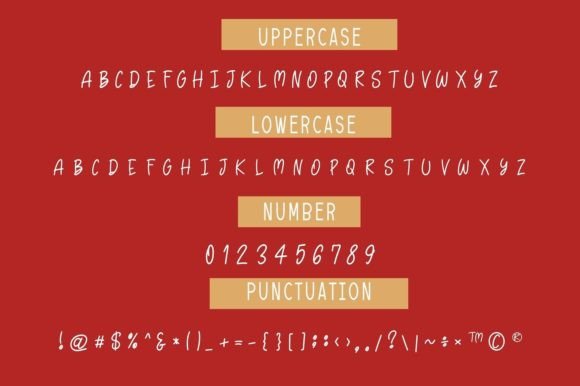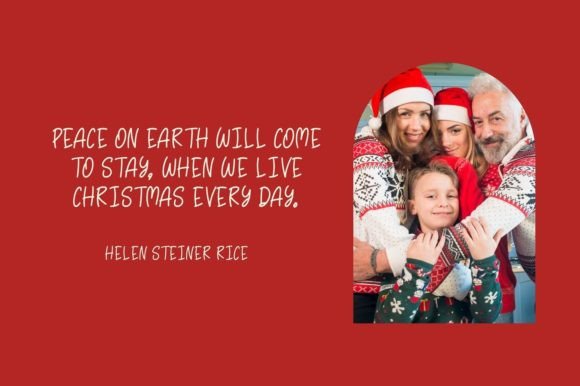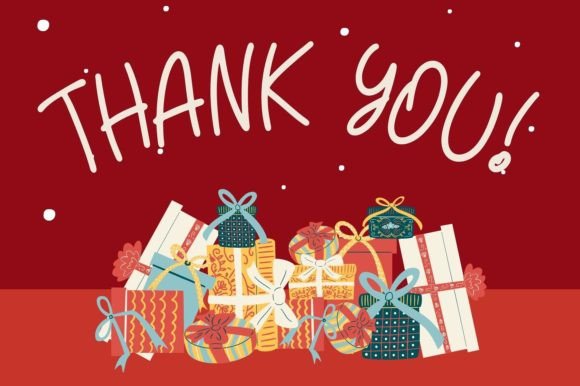
Introduction to Braidy Font
Do you ever find yourself in the midst of a creative project, rummaging through your digital stash of fonts, searching for that perfect handwritten touch? I know I do. It’s the moment when a design comes alive, and a well-chosen font can make all the difference. That’s exactly what I discovered when I stumbled upon the Braidy Font – a delightful, playful handwritten font that’s sure to elevate any project.
Key Features of Braidy Font
- Braidy Font is a high-quality design resource, ideal for creative projects requiring a unique and eye-catching typography.
- The Braidy Font features a transparent background, making it easy to overlay on images or use as a standalone design element.
- This font family includes multiple styles, from casual to formal, offering versatility for a wide range of creative projects.
- Braidy Font supports a wide range of languages, including Latin, Cyrillic, and Greek, making it a valuable resource for global design projects.
- The font’s high resolution and crisp details ensure that it looks great on both digital and print materials, from business cards to billboards.
- With its unique and intricate design, Braidy Font is perfect for designers looking to add an extra layer of sophistication and creativity to their work.
Honest Review: Braidy Font
As a designer, I’m always on the lookout for unique and high-quality design resources to enhance my creative projects. Recently, I had the chance to try out the Braidy Font, and here’s my honest review.
- ✨ The font’s intricate, hand-drawn design makes it perfect for projects that require a touch of whimsy and personality.
- ✨ The high-quality design ensures that the font looks great on a variety of backgrounds, including transparent ones.
- ⚠️ The font’s limited character set may not be suitable for projects that require a wide range of special characters.
- ⚠️ The font’s complexity may make it difficult to use in certain design software or on older systems.
Overall, I’m impressed with the Braidy Font’s unique design and high-quality construction. While it may have some limitations, I believe it’s a great addition to any designer’s toolkit, especially for creative projects that require a touch of personality.
Braidy Font is ideal for creative projects such as:
- Infographics and data visualizations